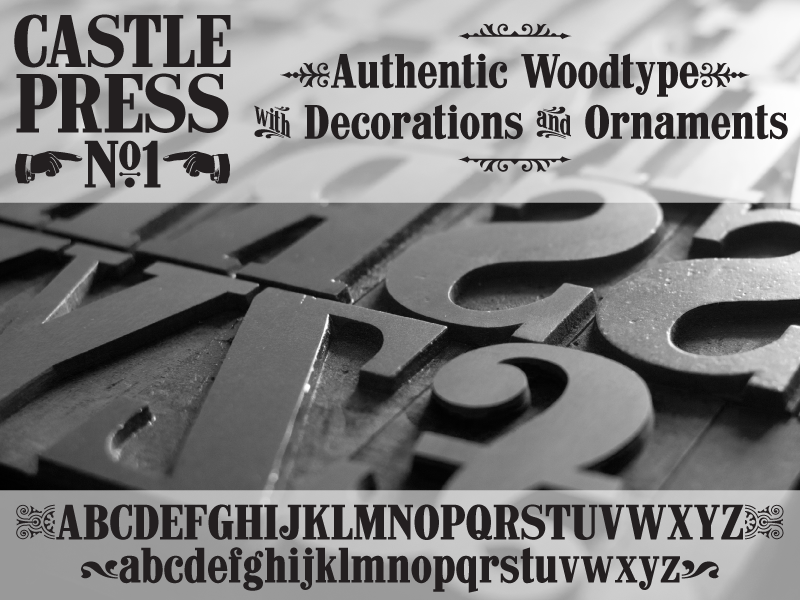
Font name: | Castle Press No1 |
Author: | Pilaster Davy |
Note by Pilaster Davy | |
On the first of May, 2015 the Castle Press, a print works, founded in 1860, in my home town closed it’s doors for the last time, ending over a century and a half of continuous working. I was privileged to be granted access to their collection of old wood type that had survived the digital transition, to photograph it, (but sadly not ‘acquire’ it) before the current owners disposed of these relics of a bygone age. Castle Press No. 1 is redrawn from the photographs of the first of these sets of wood type I was able to document. The original wood type bears the stamp of Stephenson Blake but I have so far been unable to track down the original name of the face, so my revival is named for the print works where it was found. Castle Press No. 1 is close to the original but with a few tweaks. Where I have added glyphs, I have tried to stay as true to the feel of the original as possible. Limited language support, not present in the original is included. Ornaments, found elsewhere in the wood type collection are available as stylistic alternates in opentype aware apps and through the glyphs palette or Character Map depending on OS or app you’re using (refer to your OS or app documentation for details). Because I have recreated Castle Press No. 1 to rescue it from a dusty drawer & an uncertain fate and to preserve it for the future, it is served free for personal use and ‘as is’ . If you like Castle Press No. 1, please feel free to make a ‘domestic brew’ sized donation to the ‘buy the author a beer fund’ using the donate button. For commercial use, should you find one for it, a donation should be considered as mandatory. Enjoy! Pil |